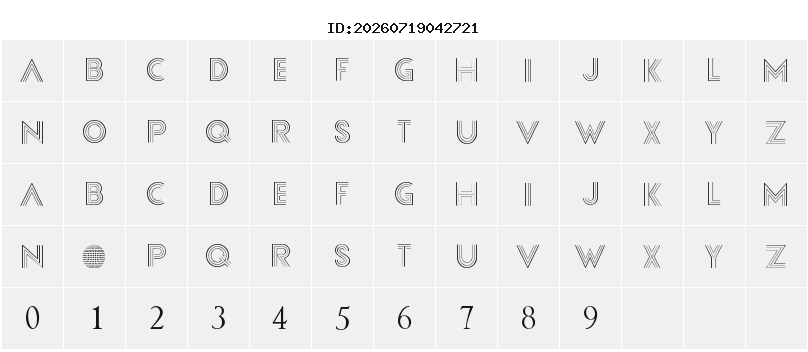
Confessions.ttf is a modern, elegant sans-serif font designed for ultimate readability and visual harmony. Perfect for branding, headlines, web design, and print materials.